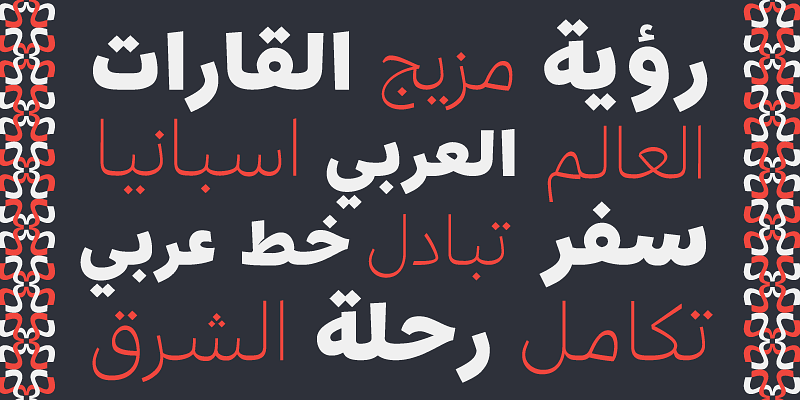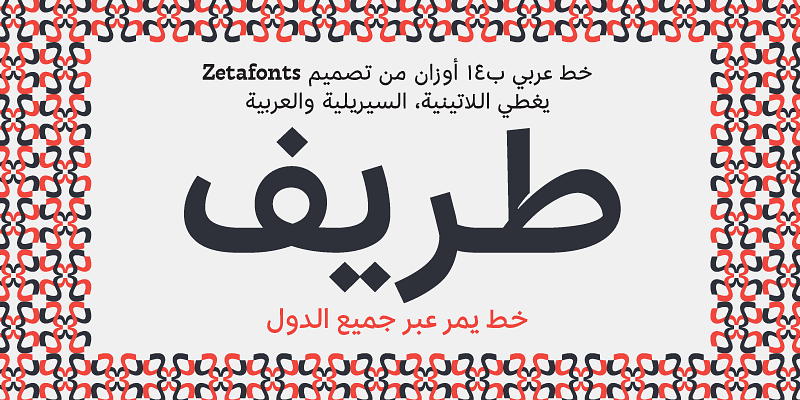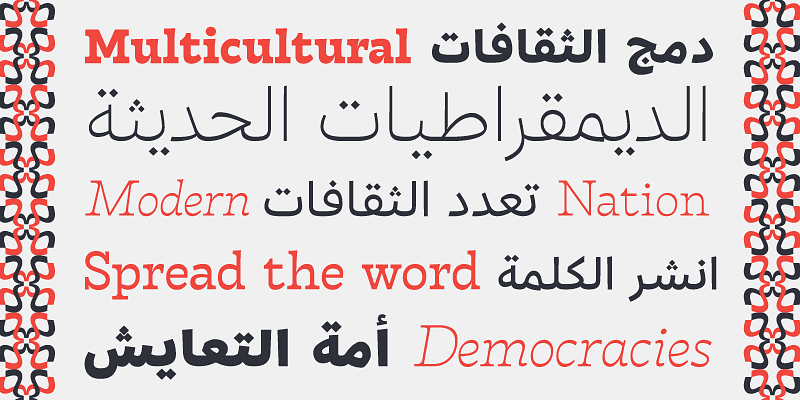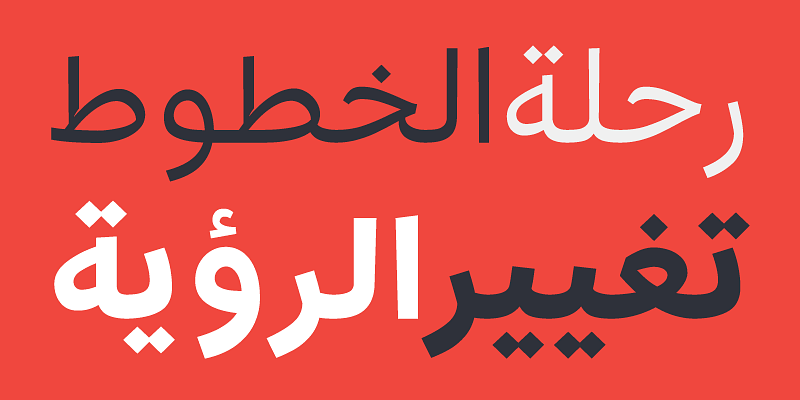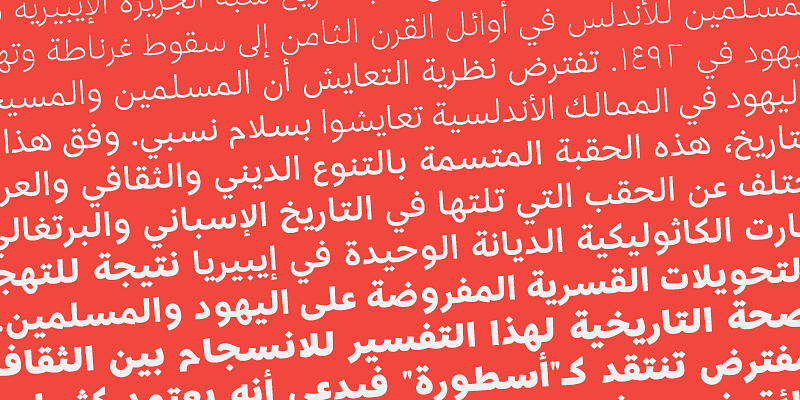
Tarif is a typeface family inspired by the multicultural utopia of Convivencia — the peaceful coexistence of Muslims, Christians and Jews in tenth century Andalusia, a region which played an important role in bringing to Europe the classics of Greek philosophy, together with Islamic culture and aesthetics. Designed for Zetafonts by Andrea Tartarelli, Tarif is a slab serif typeface with a humanist skeleton and inverted contrast, subtly mixing latin zeist, calligraphic details, extreme ink-traps, and postmodern unorthodox reinvention of traditional grotesque letter shapes.
The design of Tarif, perfect for titling, logo and display use, is complemented by a wide range of seven weights allowing for solid editorial use and great readability in body text. Matching italics have been designed with the help of Cosimo Lorenzo Pancini, while Rania Azmi has collaborated on the design of the arabic version of Tarif, where the humanist shapes and inverted contrast of the latin letters find a natural connection with modern arabic letterforms.
As buoyant as reliable, Tarif includes also a wide array of Open Type Features (alternates, ligatures, positional numerals, case sensitive punctuation) to make design smooth and multi-script projects as exciting as a surf ride in the sunny Tarifa.